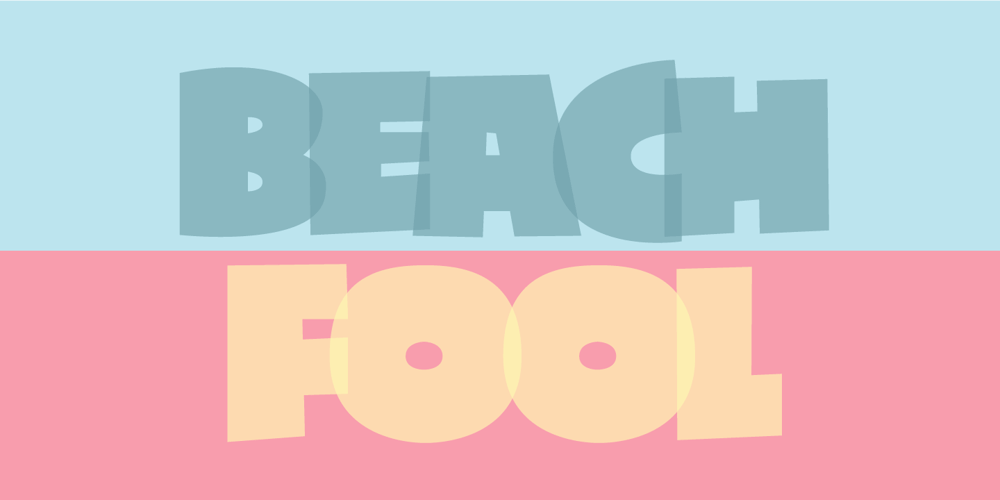
Beach Fool Font Family was designed by Jakob Fischer and published by PizzaDude.dk. Beach Fool contains 2 styles and family package options. People might consider me a fool – they might even consider me a fool on the beach…because I take a swim in the ocean, even in the wintertime!Beach Fool is a simple but yet very strong headline font. It has its roots in both grafitti and comics, which makes it really powerful for graphical expressions that needs an extra punch!